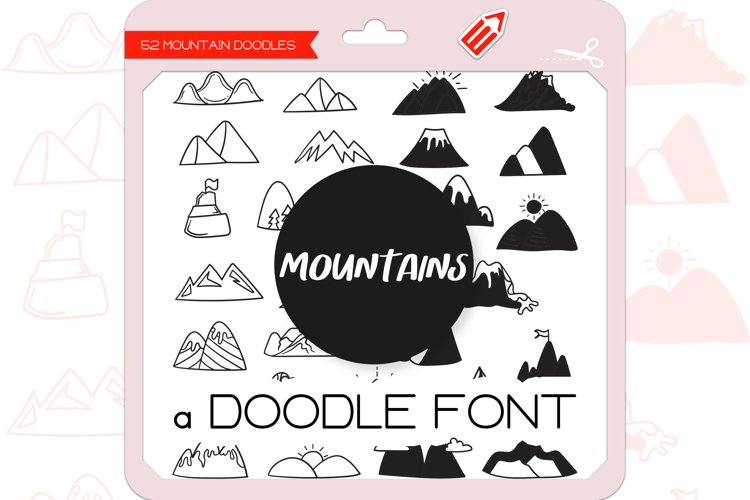
Mountains is a unique and cute dingbats font. Add this font to your creative ideas and make your arts outstanding!
Mountain dingbats font containing 52 hand-drawn doodles.